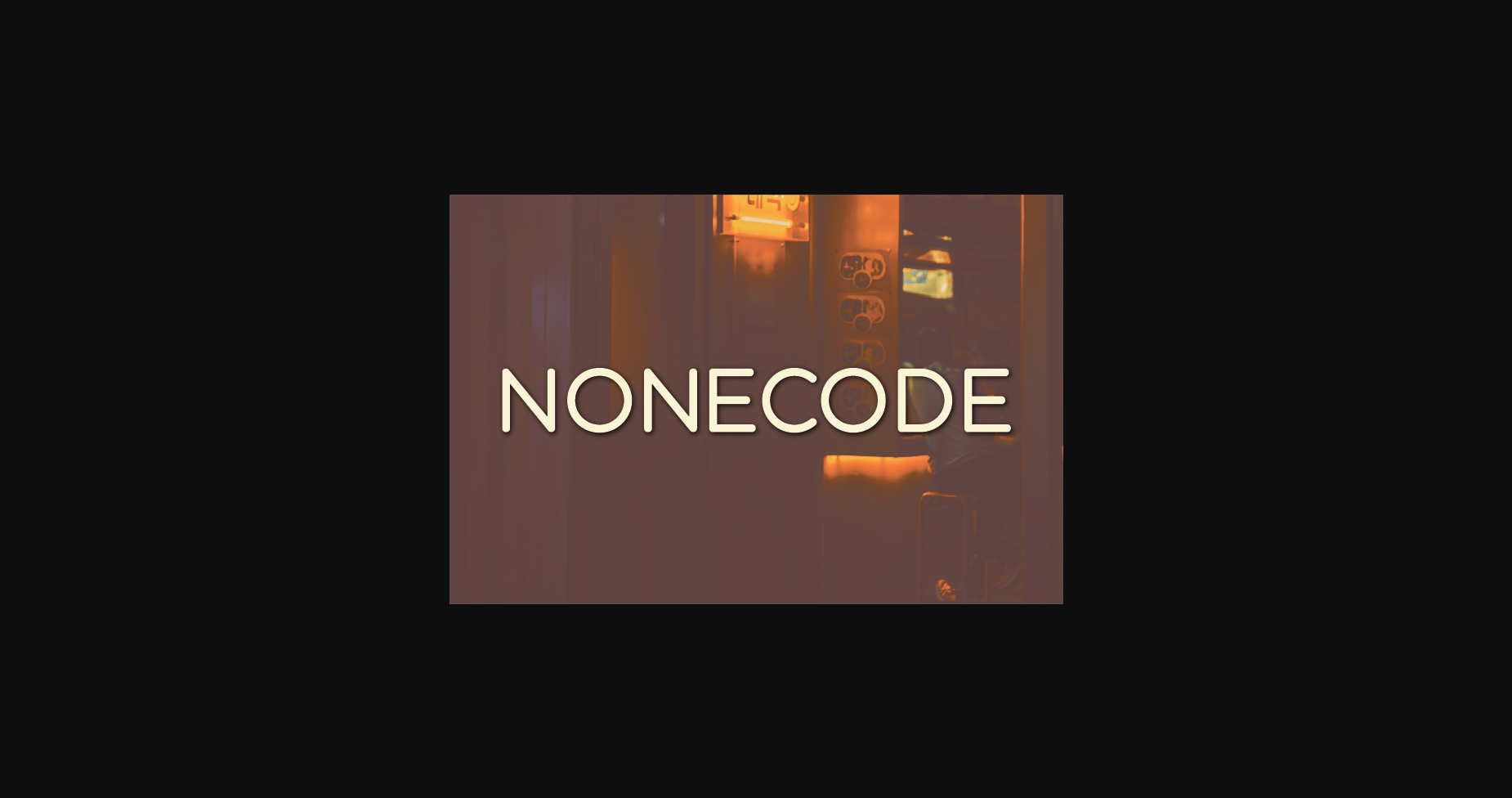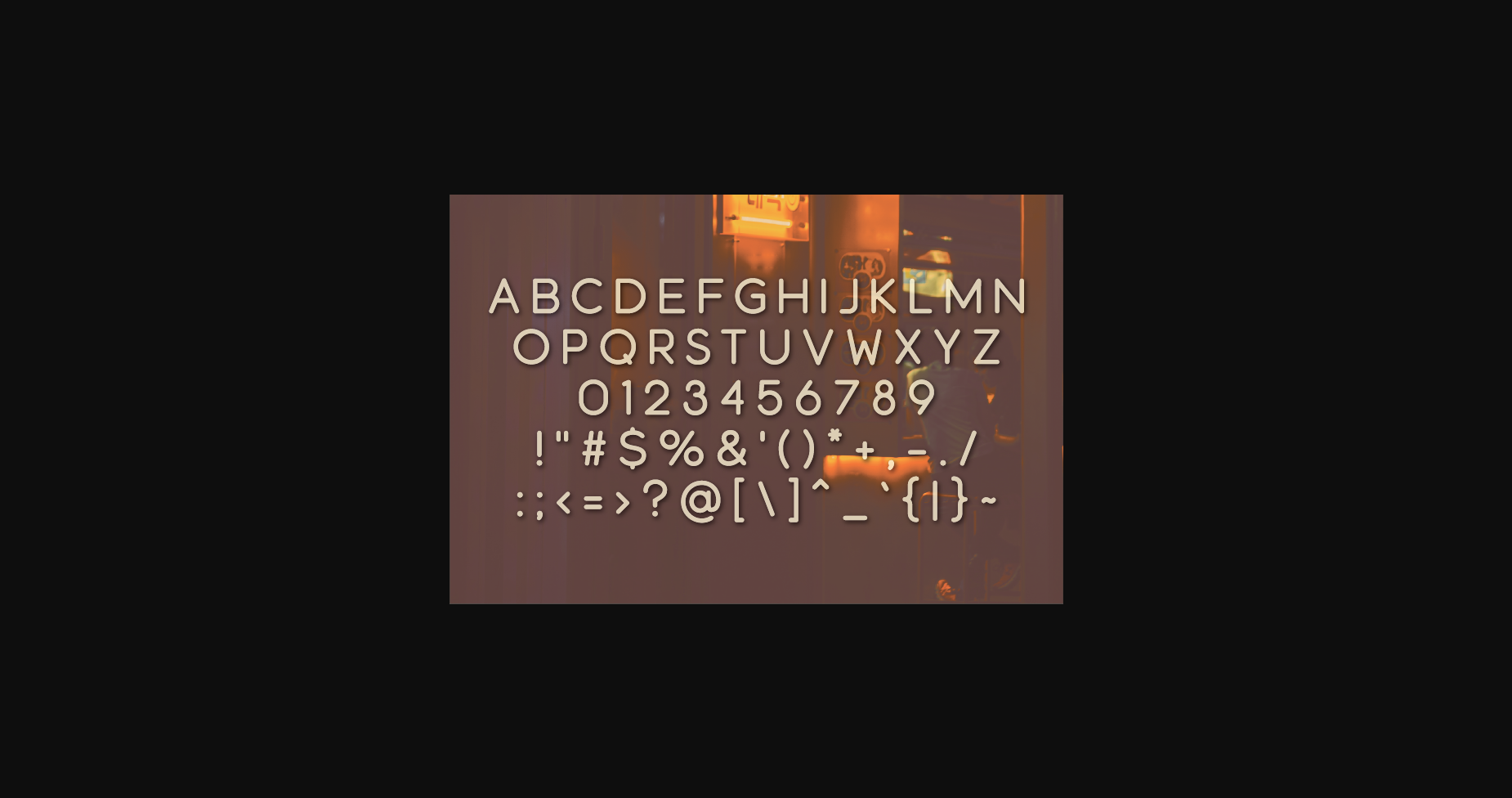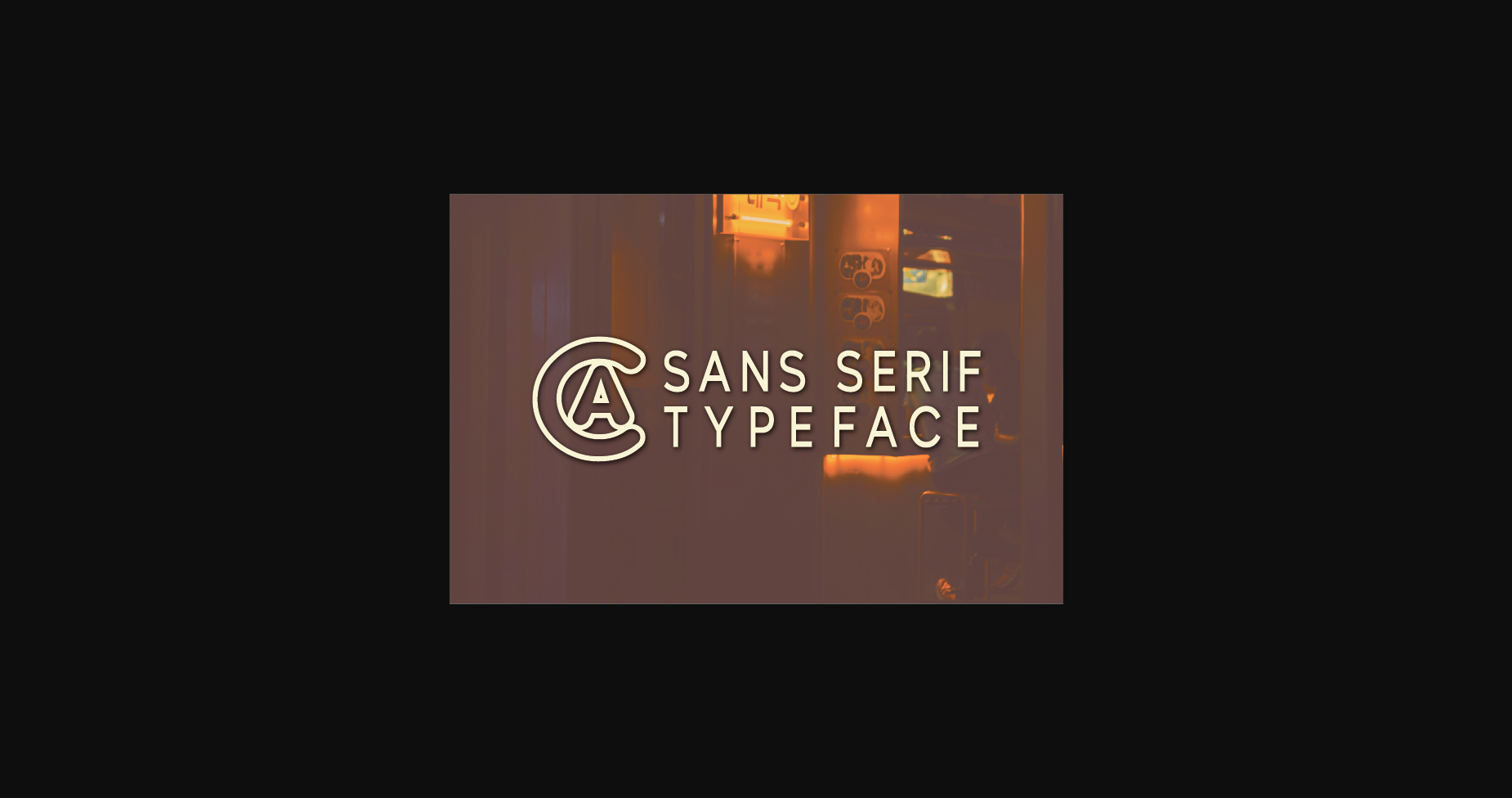
About Nonecode Font
Introducing Nonecode, a modern and classy sans serif typeface.
An extremely versatile font, perfect for logos, weddings, invitations, quotes, advertisements, print, magazines, and more!